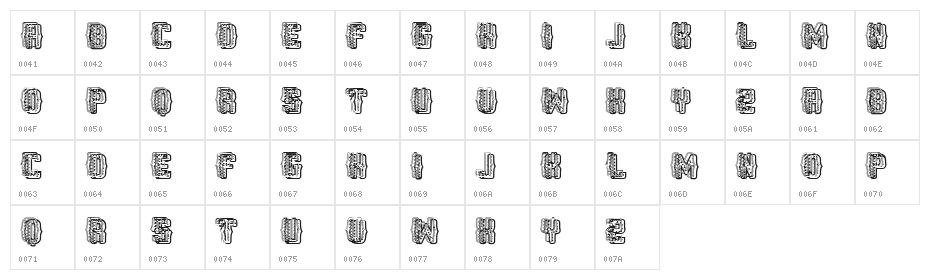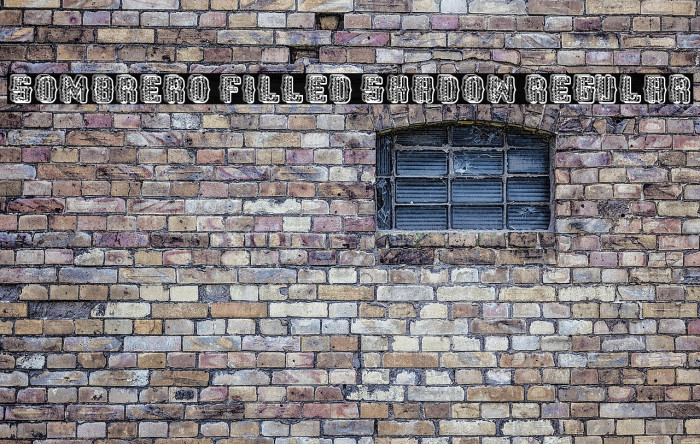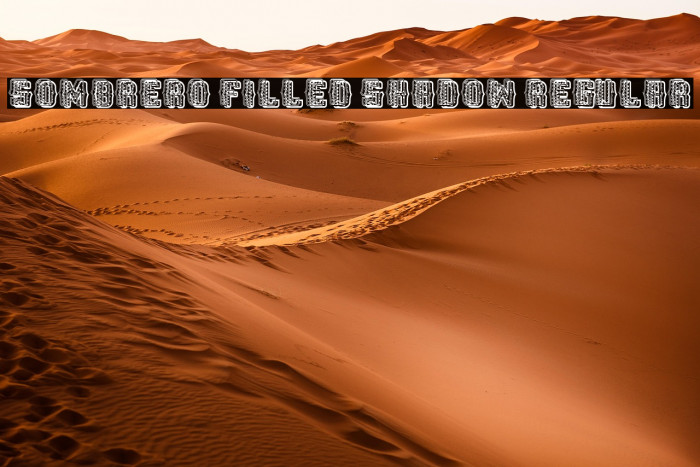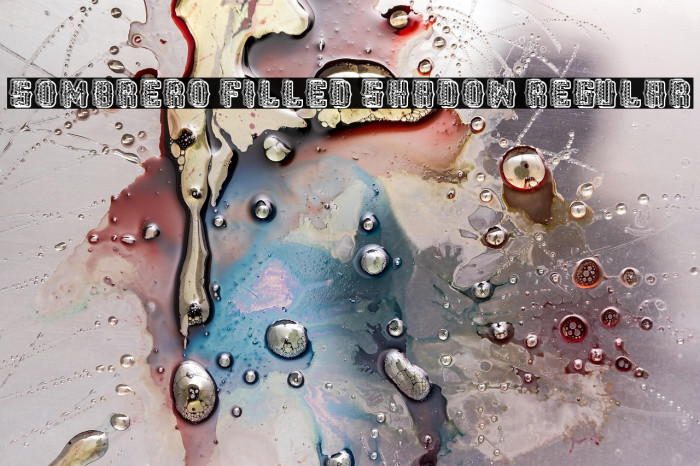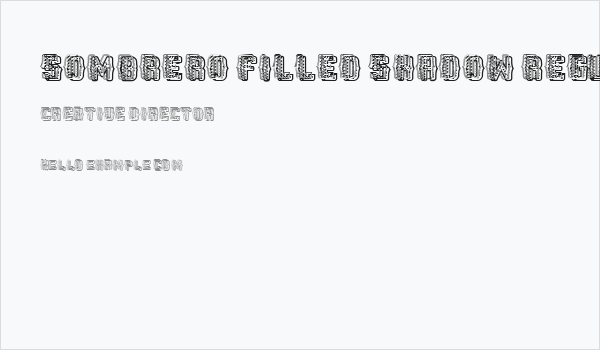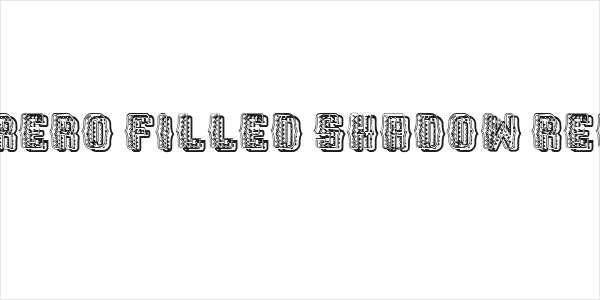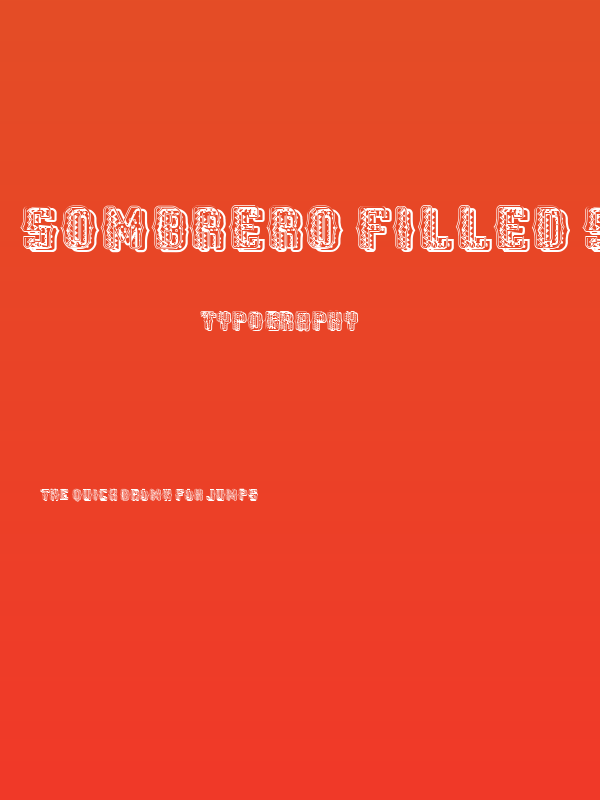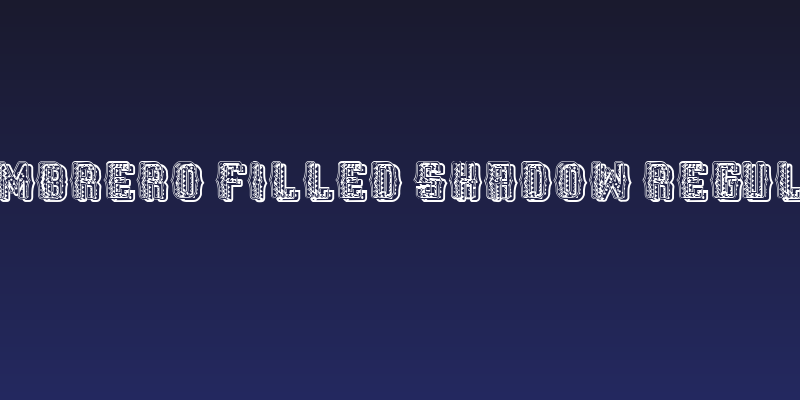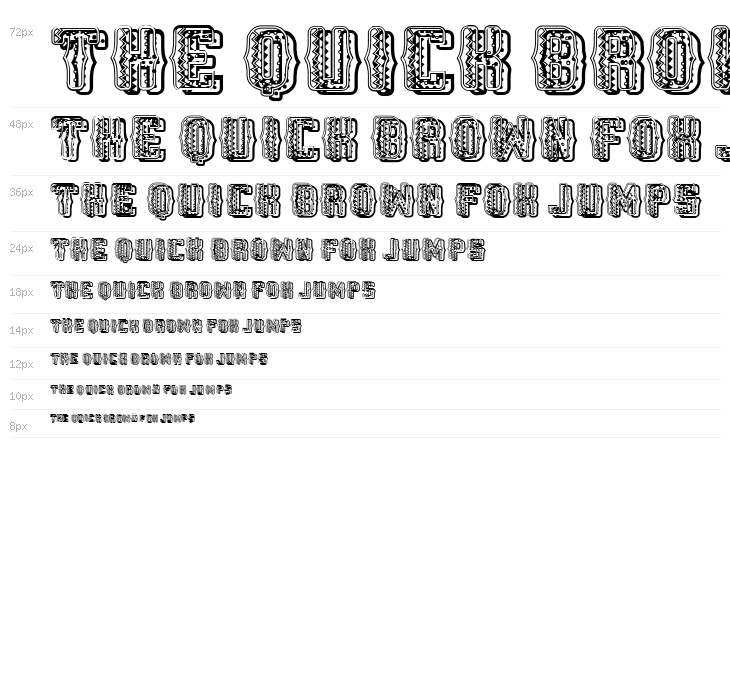
Sombrero Filled Shadow Regular Font
Sombrero Filled Shadow Regular Description
This font features a bold, decorative style with intricate patterns filling each character, creating a shadowed effect. The design is highly detailed, with each letter showcasing a unique, ornate pattern that gives it a three-dimensional appearance. The bold outlines enhance the shadow effect, making the characters stand out prominently. This font is ideal for eye-catching designs where a strong visual impact is desired. The intricate details and shadowing make it suitable for projects that require a touch of creativity and flair.
| Proposed Projects | Ideal for posters, event invitations, branding materials, and any project needing a bold, artistic touch. |